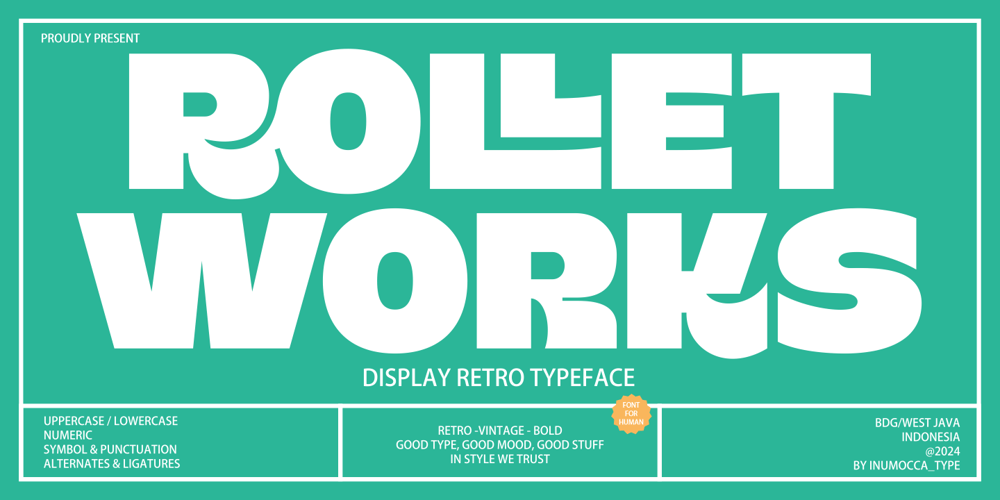
Rollet Works
Rollet Works font
Rollet Works Font Family was designed by Inu Mocca and published by Inumocca. Rollet Works contains 2 styles and family package options. Rollet Works is A Display Retro typeface, simple Bold and RetroUnique Character add strength to any visual appeal, like Branding, Movie Title, Headline Letter, Bookcover or Book Content, Magazine cover, Poster, Quotes Lettering, Logos, and more your project design.- Unique glyphs- Multilingual Characters- UPPERCASE- Lowercase- Numeric- Symbol- Punctuation Character- PUA encoded- Stylistic Alternates (ss01)- Ligaturesinumocca type